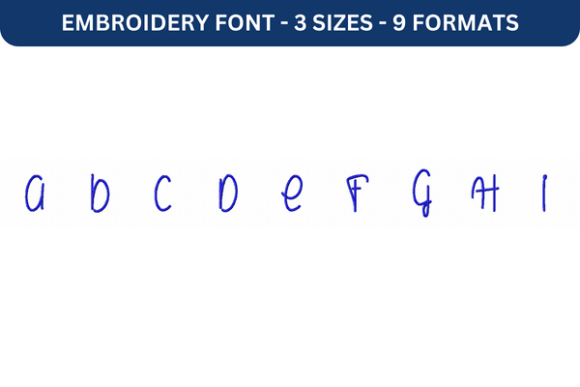
Emma Jean Font a to I: A Versatile Embroidery Font for Creative Projects
Emma Jean Font a to I is a unique embroidery font designed to bring personalization and artistic flair to fabric-based projects. Whether you're crafting custom gifts, branding materials, or decorative items, this font offers a stylish and adaptable solution. Its clean lines and elegant design make it suitable for a wide range of applications, from simple monograms to intricate quotes.
Why Emma Jean Font a to I Matters to Different Audiences
For many people, the ability to personalize their work is more than just a convenience—it’s an expression of identity and creativity. Emma Jean Font a to I caters to various user groups, each with distinct needs and goals.
Beginners: A Gateway to Embroidery
For those new to embroidery, this font serves as an excellent starting point. It simplifies the process of creating personalized designs without requiring advanced technical skills. Beginners can use it to practice stitching names, dates, or short phrases on fabric, building confidence and experience.
Professionals: Enhancing Branding and Marketing Materials
Professionals in marketing, branding, or event planning may find Emma Jean Font a to I valuable for creating custom signage, promotional items, or branded merchandise. Its consistent style ensures that logos, slogans, and other text elements maintain a cohesive look across different products.
Creators and Hobbyists: Expressing Personal Style
Artists, crafters, and hobbyists often seek fonts that reflect their individuality. Emma Jean Font a to I allows them to add a touch of elegance to their handmade items, whether it's a quilt, a tote bag, or a piece of wall art. The font’s versatility makes it easy to incorporate into a variety of creative projects.
Key Features That Make Emma Jean Font a to I Stand Out
- Easy to Use: Designed for both beginners and experienced users, it requires minimal setup and adjustment.
- High-Quality Stitching: The font maintains clarity and detail even when stitched at different sizes.
- Customizable: Users can adjust the placement, size, and color of the font to suit their project’s needs.
Practical Examples for Different User Groups
Business Owners: A local boutique could use Emma Jean Font a to I to create custom tags for their products, adding a personal touch that resonates with customers.
Bloggers and Educators: These professionals might use the font to embroider labels for DIY tutorials or educational kits, making their content more engaging and visually appealing.
Freelancers and Marketers: Adding embroidered text to promotional items like notebooks or keychains can help reinforce brand messaging and create memorable experiences for clients.
Choosing the Right Font for Your Needs
When selecting an embroidery font, several factors come into play. Ease of use is crucial for beginners, while professionals may prioritize quality and consistency. Creators and hobbyists often look for flexibility and creative potential.
Comparing Priorities Across User Groups
- Beginners: Focus on simplicity, affordability, and ease of use.
- Experienced Users: Value precision, customization options, and reliability.
- Professionals: Seek high-quality output, compatibility with industry-standard tools, and scalability.
- Consumers: Look for value for money, clear instructions, and support for common use cases.
Emma Jean Font a to I strikes a balance between these priorities, offering a reliable and versatile option that works well for a broad audience.
For those new to embroidery, consider experimenting with small projects first, such as embroidered name tags or personalized towels. As you gain confidence, you can tackle more complex designs and explore new creative possibilities.
For small business owners, the font’s adaptability can lead to cost savings and increased efficiency. By creating custom embroidered items in-house, you can reduce reliance on external vendors and maintain greater control over your product offerings.
Conclusion
Emma Jean Font a to I is more than just a design tool—it’s a way to bring personalization, creativity, and professionalism to your embroidery projects. Whether you're a beginner exploring the world of embroidery or a seasoned professional looking to enhance your workflow, this font offers something valuable for everyone.